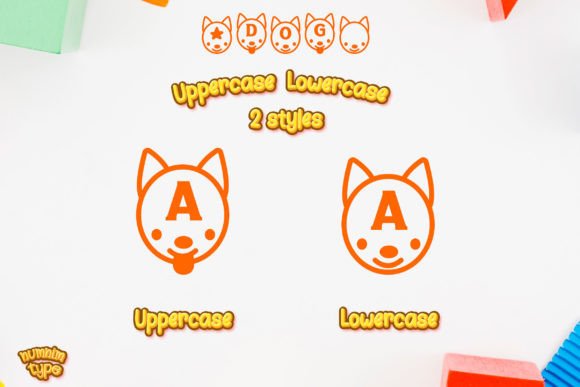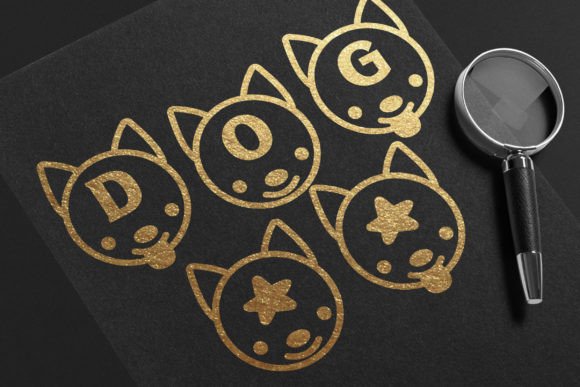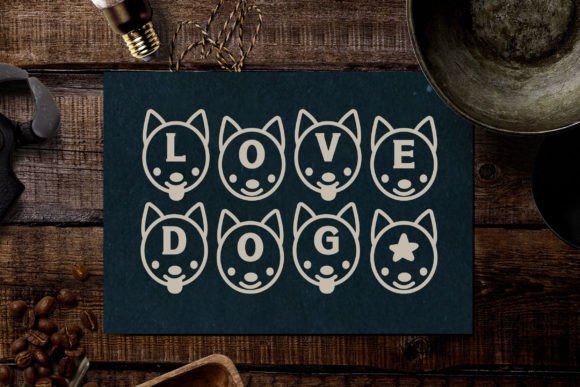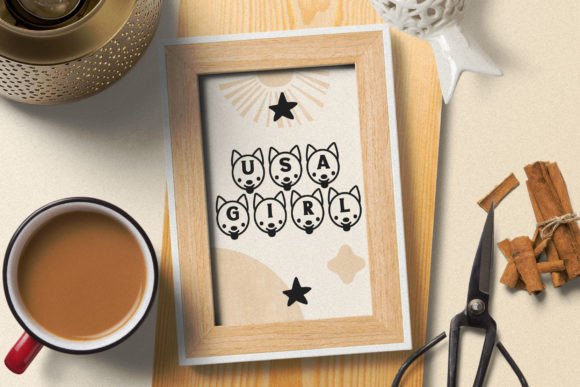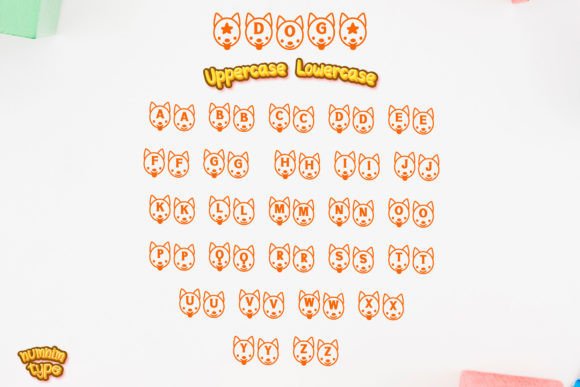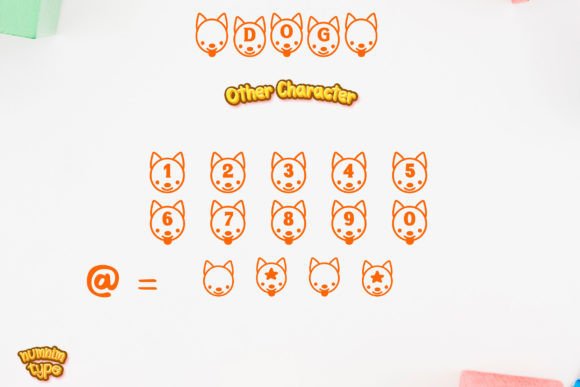
The Ultimate Guide to Dog Font: Unleash Your Creativity
I’ll never forget the time I was working on a project for a kids’ birthday party, and I just couldn’t find the perfect font to match the playful theme. The client wanted something fun, quirky, and eye-catching, but everything I tried seemed either too boring or too over-the-top. That’s when I stumbled upon the Dog font, and let me tell you, it was love at first sight! 🐾
- ✅ Unique and playful character design that’s perfect for kids’ projects, stickers, and ornaments
- ✅ PUA encoded for easy access to glyphs and alternates
- ✅ Highly versatile and can be used for a wide range of creative projects, from event invitations to t-shirts
- ✅ Fun and quirky personality that adds a touch of whimsy to any design
Small Quirks and Limitations 🤔
- ⚠️ Some characters may require manual kerning for optimal spacing
- ⚠️ Limited availability of uppercase letters, but the existing ones are just as charming!
The Story Behind Dog Font: Designer Inspiration
According to the designer, Dog font was inspired by the joy and playfulness of childhood. The goal was to create a font that would bring a smile to people’s faces and add a touch of whimsy to their creative projects. With its unique character design and PUA encoding, Dog font has become a favorite among designers and crafters alike.
Q: Is Dog font suitable for large-scale projects, such as signage or billboards?
While Dog font is perfect for small-scale projects like stickers and invitations, it may not be the best choice for large-scale projects like signage or billboards. For larger projects, you may want to consider a font with more robust and clear character design.